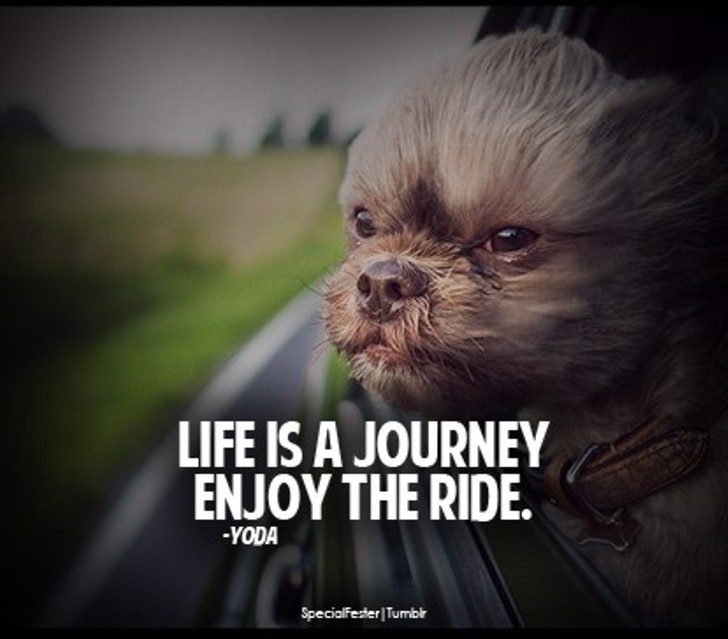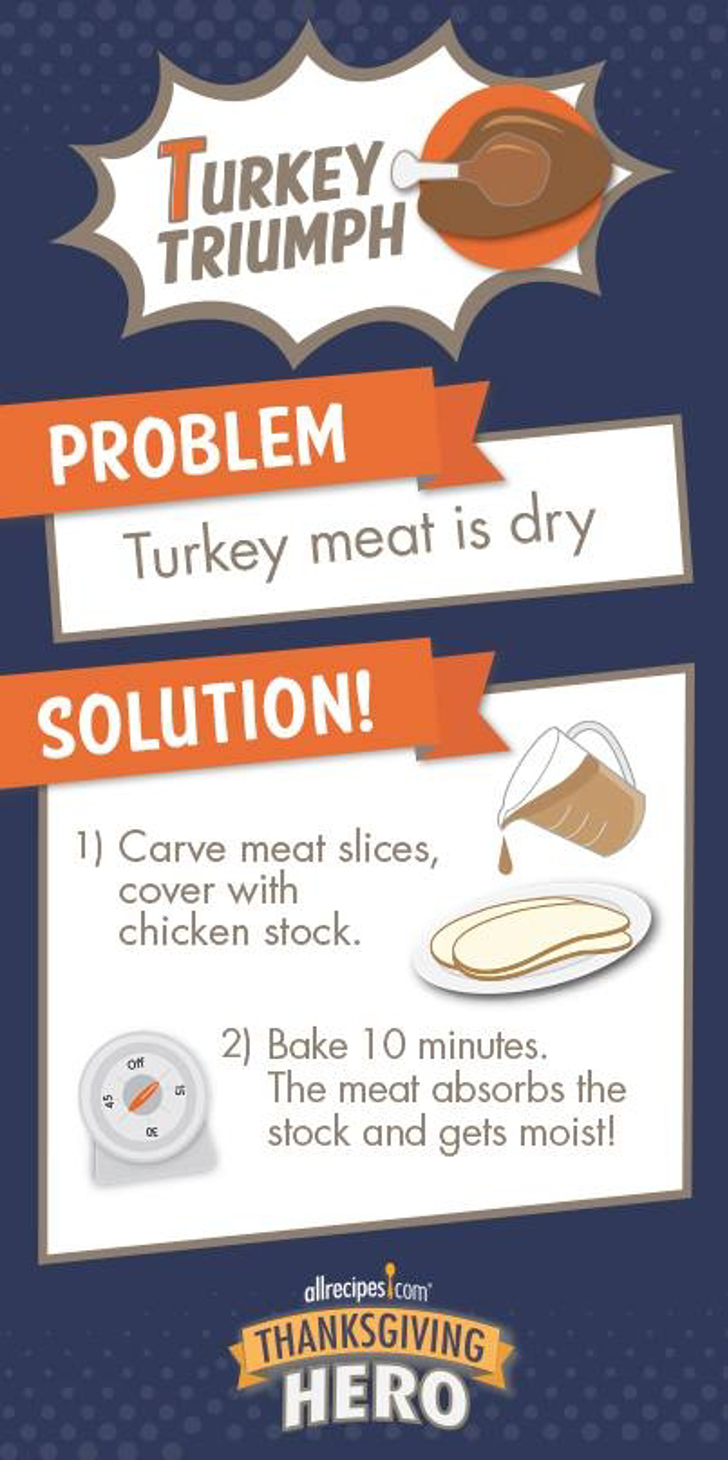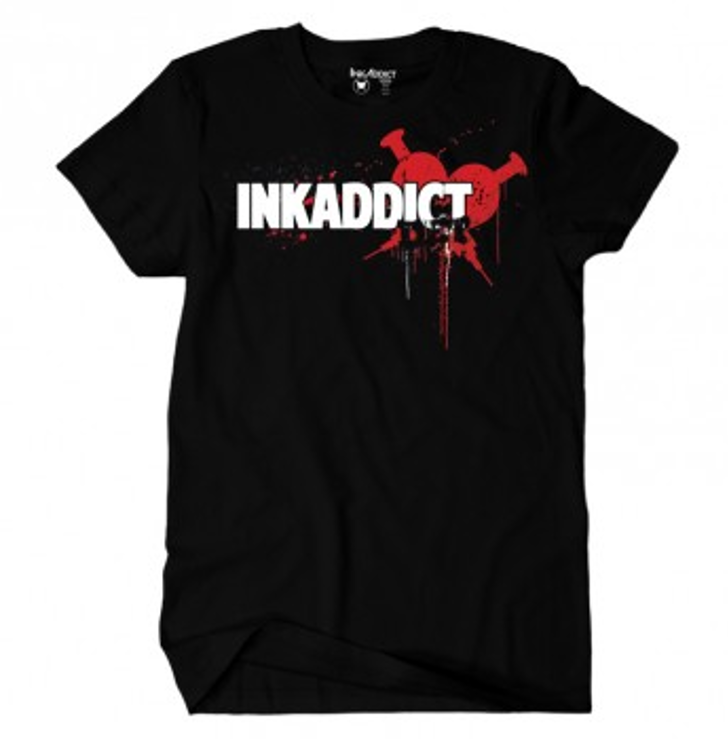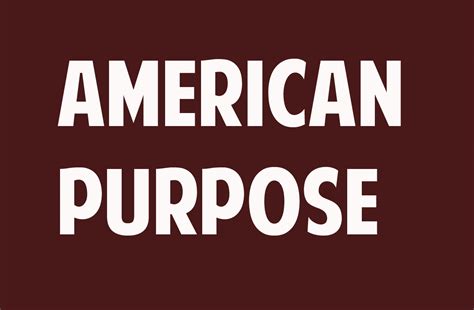
American Purpose Font . Web american purpose by michael g. Adkins to create arced and enveloped effects.
Web whether you’re crafting personal projects or seeking to elevate your design game, american purpose font stands as a beacon of. Web download american purpose font, a sans serif font inspired by captain america's colors and shapes. This font is inspired by the captain america comics and has two versions:
Web download american purpose casual font for free for personal use. Adkins to create arced and enveloped effects. This font is inspired by the captain america comics and has two versions: Designed in the spirit of american heritage, it captures an.
American Purpose Font - Web american purpose is a font designed by michael g. This font is free for. Web download american purpose font for free and preview it with different colors and effects. Web american purpose by michael g. This font is inspired by the captain america comics and has two versions:
American Purpose Font - This time his colors are shining. Adkins to create arced and enveloped effects. Web download american purpose font, a sans serif font inspired by captain america's colors and shapes. This font is free for. Web american purpose is a font designed by michael g.
American Purpose Font - Designed in the spirit of american heritage, it captures an. Web american purpose font is a patriotic font and was created on dec 29, 2010. The captain america knows and loves best is back. This font is free for. Web download american purpose font for free and preview it with different colors and effects.
American Purpose Font - Designed in the spirit of american heritage, it captures an. The captain america knows and loves best is back. Web download american purpose font, a sans serif font inspired by captain america's colors and shapes. Web american purpose is a font designed by michael g. This font is inspired by the captain america comics and has two versions:
American Purpose Font - Web american purpose by michael g. This time his colors are shining. Adkins to create arced and enveloped effects. Web american purpose is a striking typeface created by the fontry. Web american purpose is a font designed by michael g.
American Purpose Font - Web american purpose font is a patriotic font and was created on dec 29, 2010. Web american purpose is a font designed by michael g. Web american purpose is a striking typeface created by the fontry. The captain america knows and loves best is back. Adkins to create arced and enveloped effects.
American Purpose Font - Designed in the spirit of american heritage, it captures an. Web american purpose is a font designed by michael g. The captain america knows and loves best is back. This font is inspired by the captain america comics and has two versions: Web whether you’re crafting personal projects or seeking to elevate your design game, american purpose font stands as.
American Purpose Font - The captain america knows and loves best is back. This time his colors are shining. Web download american purpose font for free and preview it with different colors and effects. This font is free for. It has 10 styles and is free for personal use only.
American Purpose Font - This time his colors are shining. This font is inspired by the captain america comics and has two versions: Adkins to create arced and enveloped effects. Web american purpose is a striking typeface created by the fontry. Web american purpose font is a patriotic font and was created on dec 29, 2010.
American Purpose Font - The captain america knows and loves best is back. This font is free for. Web american purpose font is a patriotic font and was created on dec 29, 2010. Adkins to create arced and enveloped effects. It has 10 styles and is free for personal use only.
American Purpose Font - Web download american purpose casual font for free for personal use. It has 10 styles and is free for personal use only. Web download american purpose font for free and preview it with different colors and effects. Designed in the spirit of american heritage, it captures an. The captain america knows and loves best is back.
American Purpose Font - Web american purpose is a striking typeface created by the fontry. This time his colors are shining. Web download american purpose font, a sans serif font inspired by captain america's colors and shapes. Web american purpose font is a patriotic font and was created on dec 29, 2010. The captain america knows and loves best is back.
American Purpose Font - This font is inspired by the captain america comics and has two versions: This font is free for. Web american purpose by michael g. Web american purpose is a font designed by michael g. Web download american purpose font, a sans serif font inspired by captain america's colors and shapes.
American Purpose Font - Web whether you’re crafting personal projects or seeking to elevate your design game, american purpose font stands as a beacon of. This time his colors are shining. This font is inspired by the captain america comics and has two versions: Web download american purpose font for free and preview it with different colors and effects. Web download american purpose font,.